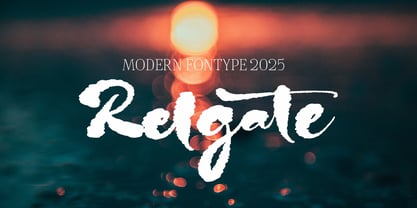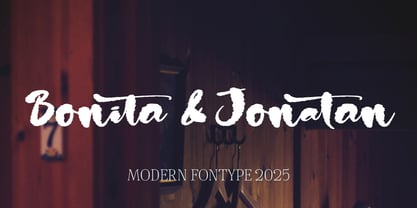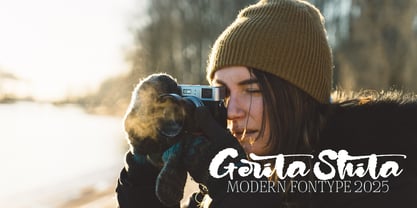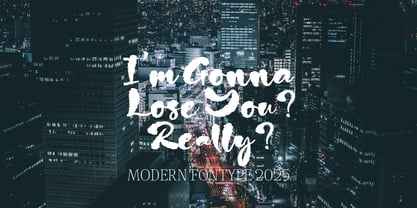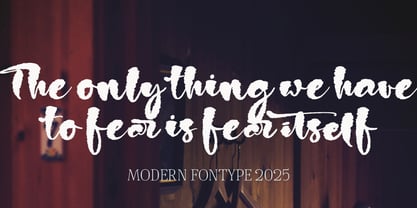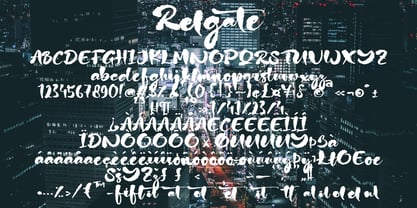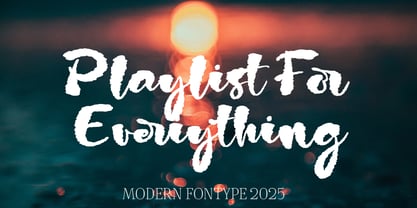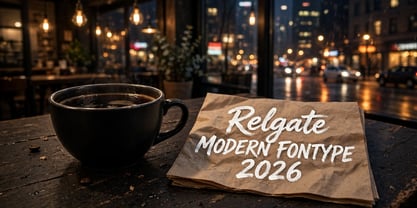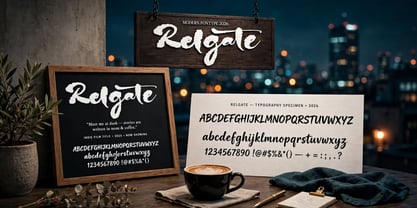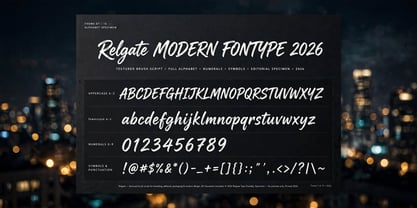
Relgate
by Naatypo
The Relgate Font Family was designed by Kurnia Elis Setyorini and published by Naatypo. Relgate contains 1 styles. More about this family
Introducing, Relgate is a vintage version font suitable for your design project needs, such as; vintage themes, social media posts, quotes, overlays on images, tagline logos, posters, print needs, website banners, and more. Great for Apparel Brand, Logos, printed quotes, invitations, image overlays, greeting cards, product packaging, text headers, any greeting cards, book cover, Painting design style, or any design that needs natural and personal touch.
Relgate